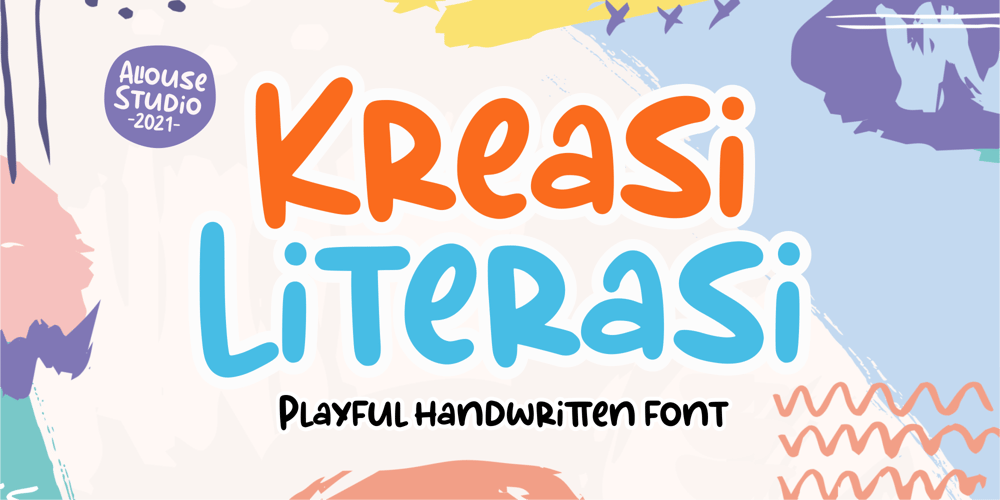
Kreasi Literasi Font Family was designed by Fachrizal Yusuf and published by Allouse Studio. Kreasi Literasi contains 1 styles and family package options. Proudly Present, Kreasi Literasi a Playful Handwritten FontKreasi Literasi is perfect for any titles, logo, product packaging, branding project, megazine, social media, wedding, or just used to express words above the background.Kreasi Literasi also come with Multi-Lingual Support.Enjoy the font, feel free to comment or feedback, send me PM or email. Thank You!